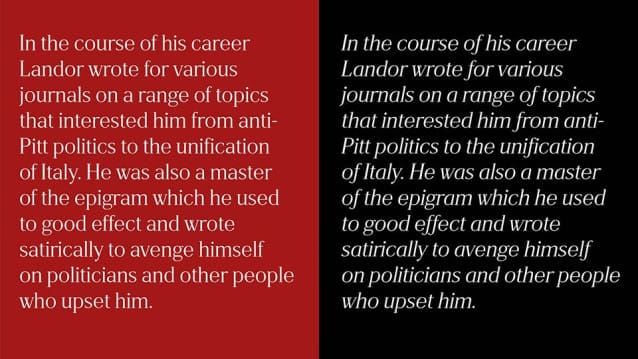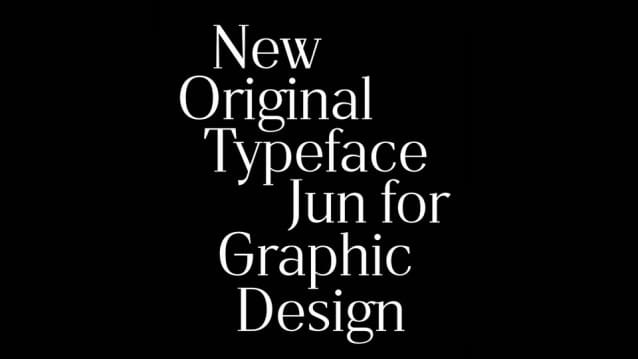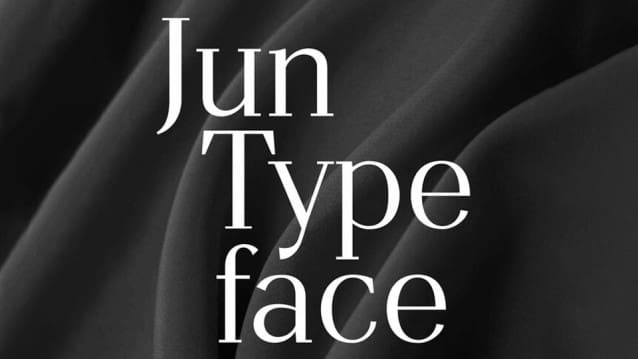
Jun Font
Jun Font is a modern and elegant serif typeface designed to bring sophistication and grace to your typography. Its refined letterforms are complemented by a sleek, flowing italic that adds versatility and charm. With carefully balanced proportions and subtle contrast in its strokes, Junfont embodies timeless beauty with a contemporary edge.
Ideal for editorial layouts, branding, wedding invitations, and high-end packaging, this typeface shines in projects that require a touch of luxury and refinement. The italic variation enhances its adaptability, making it suitable for both formal headlines and expressive body text.
Use Jun font to elevate your designs with its harmonious blend of tradition and modernity, ensuring a polished and captivating typographic presence.